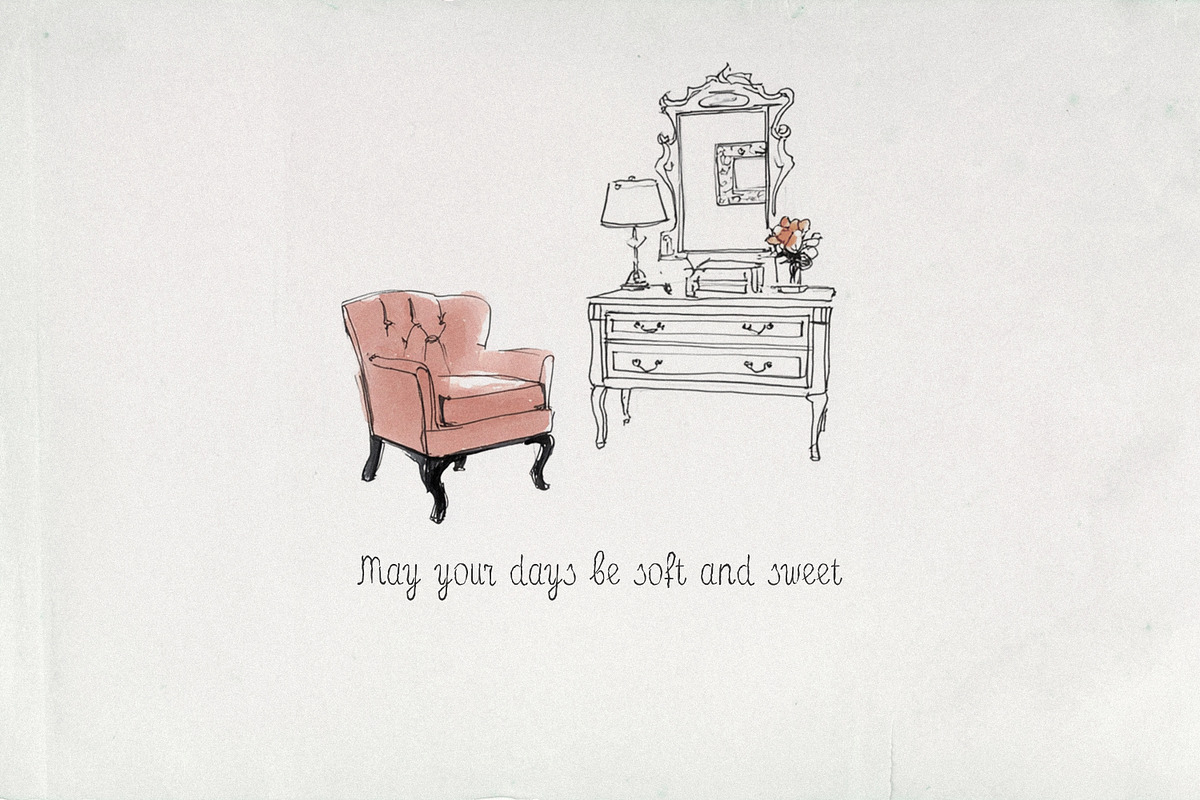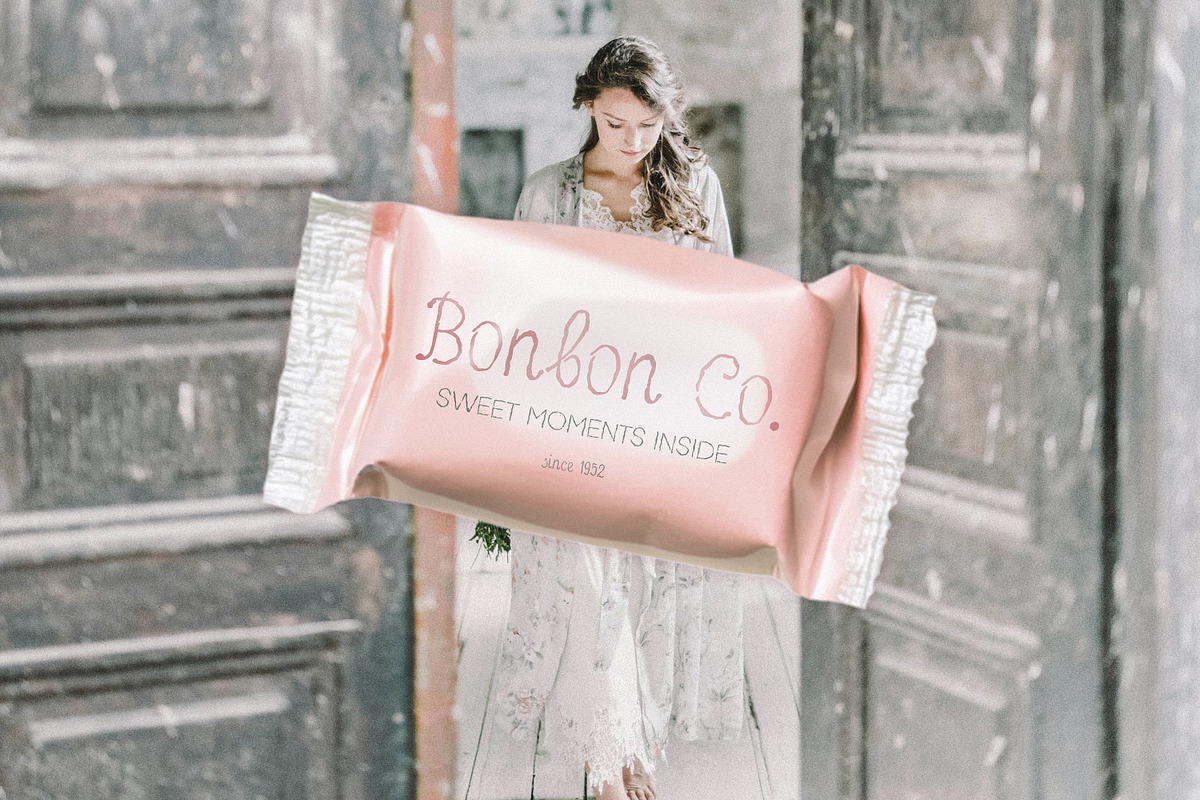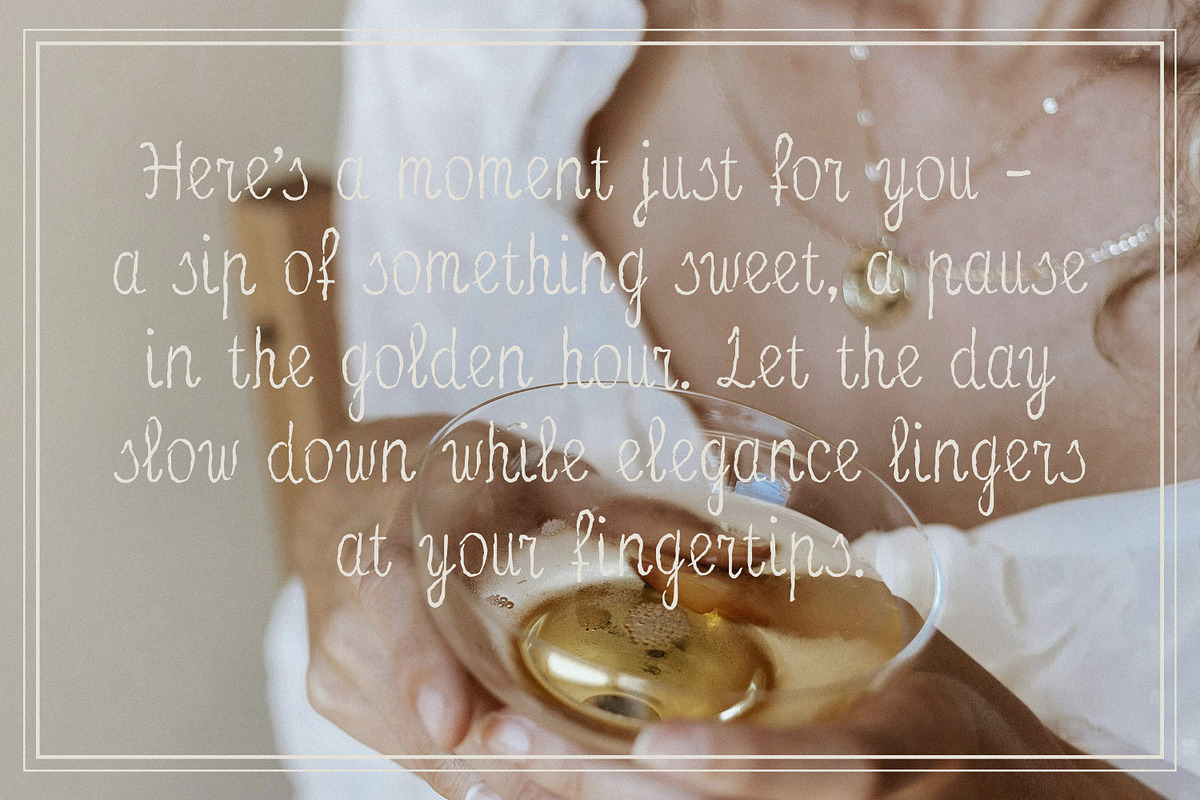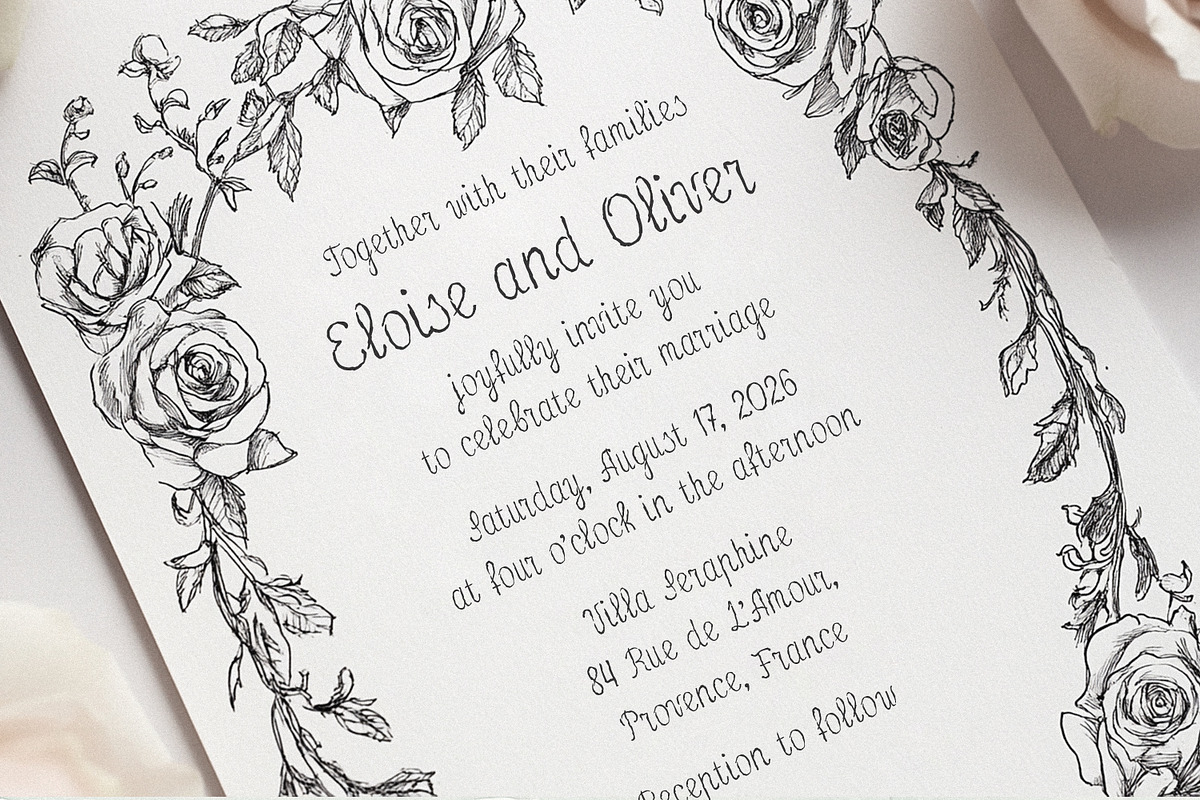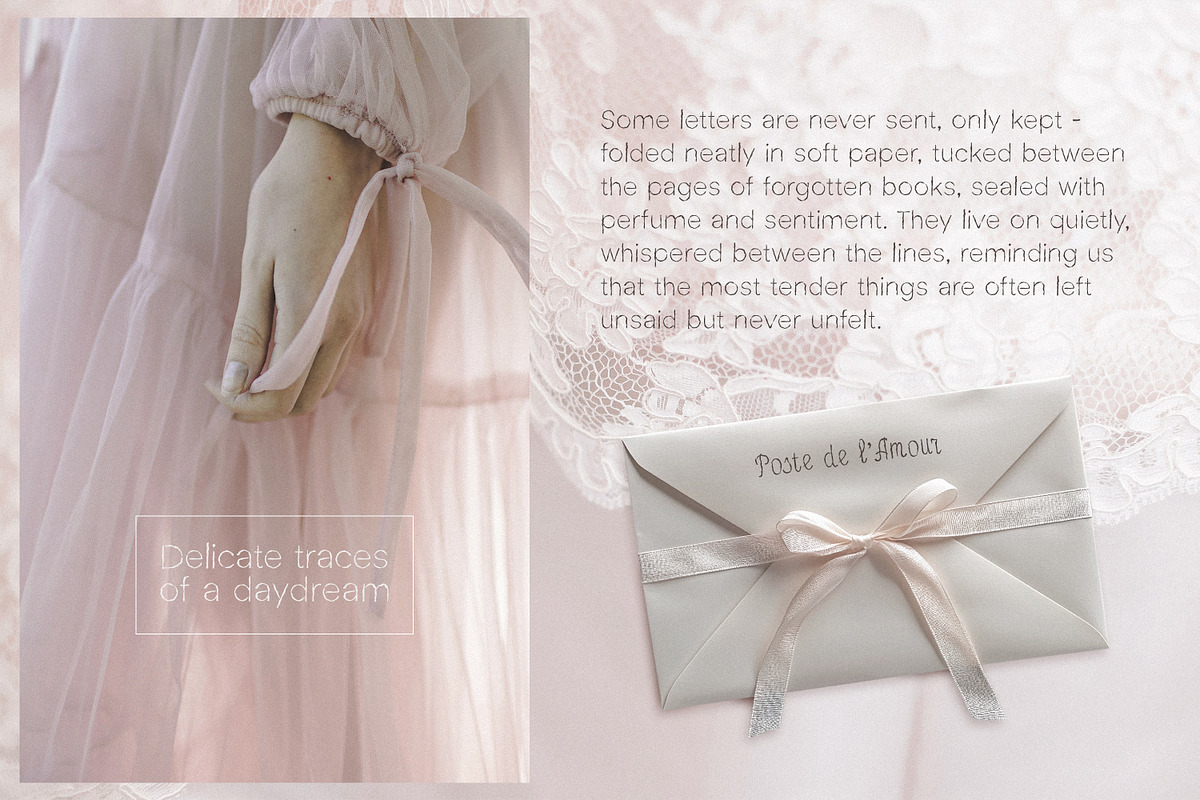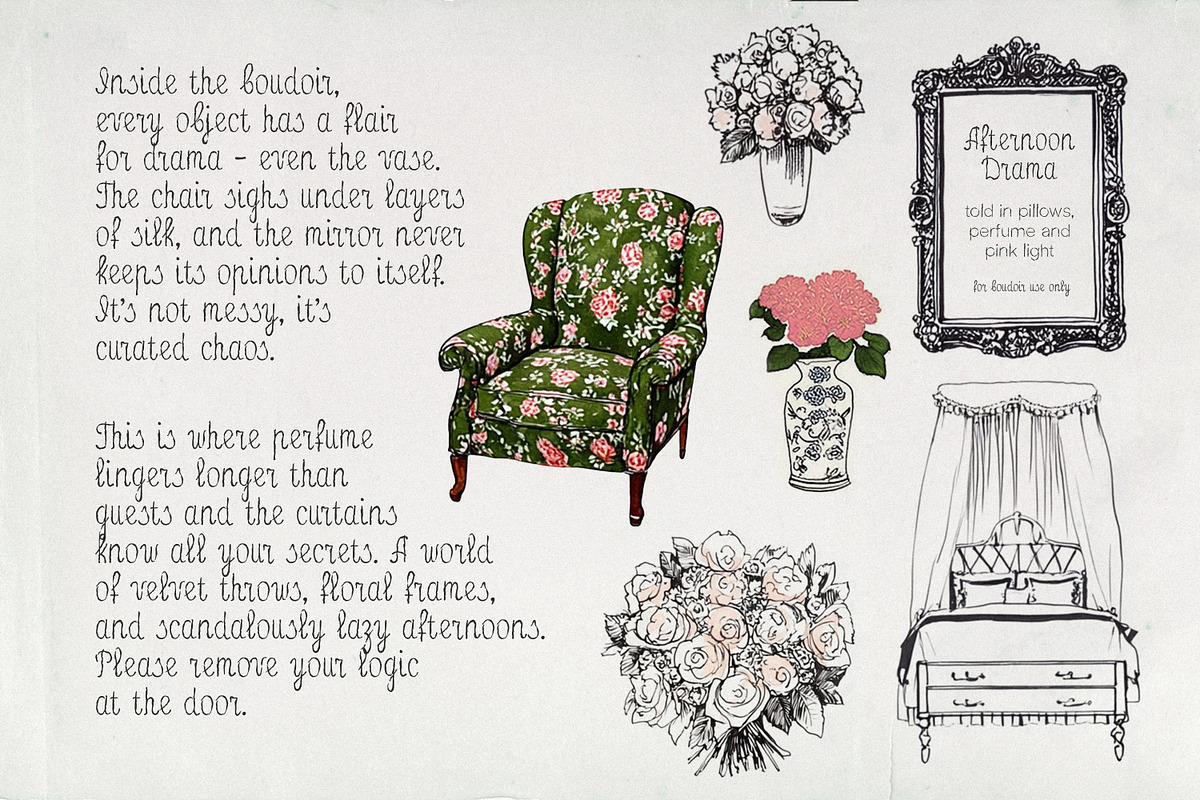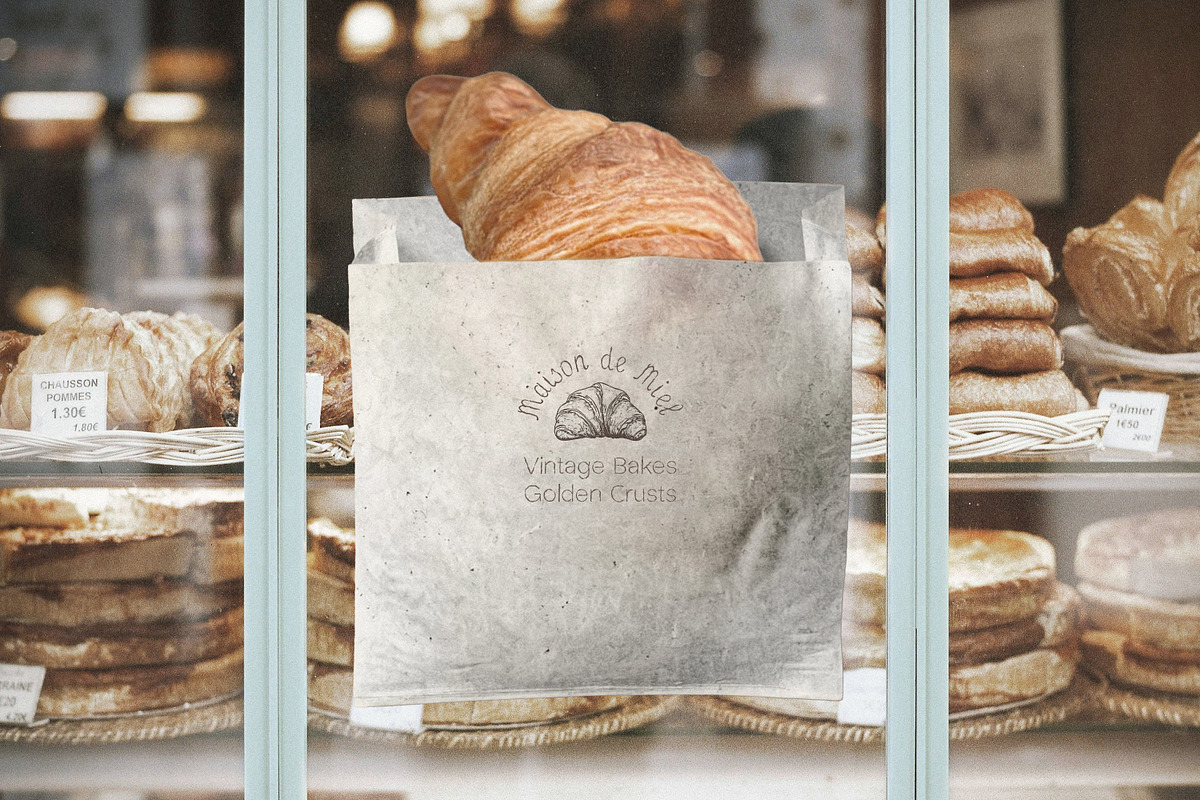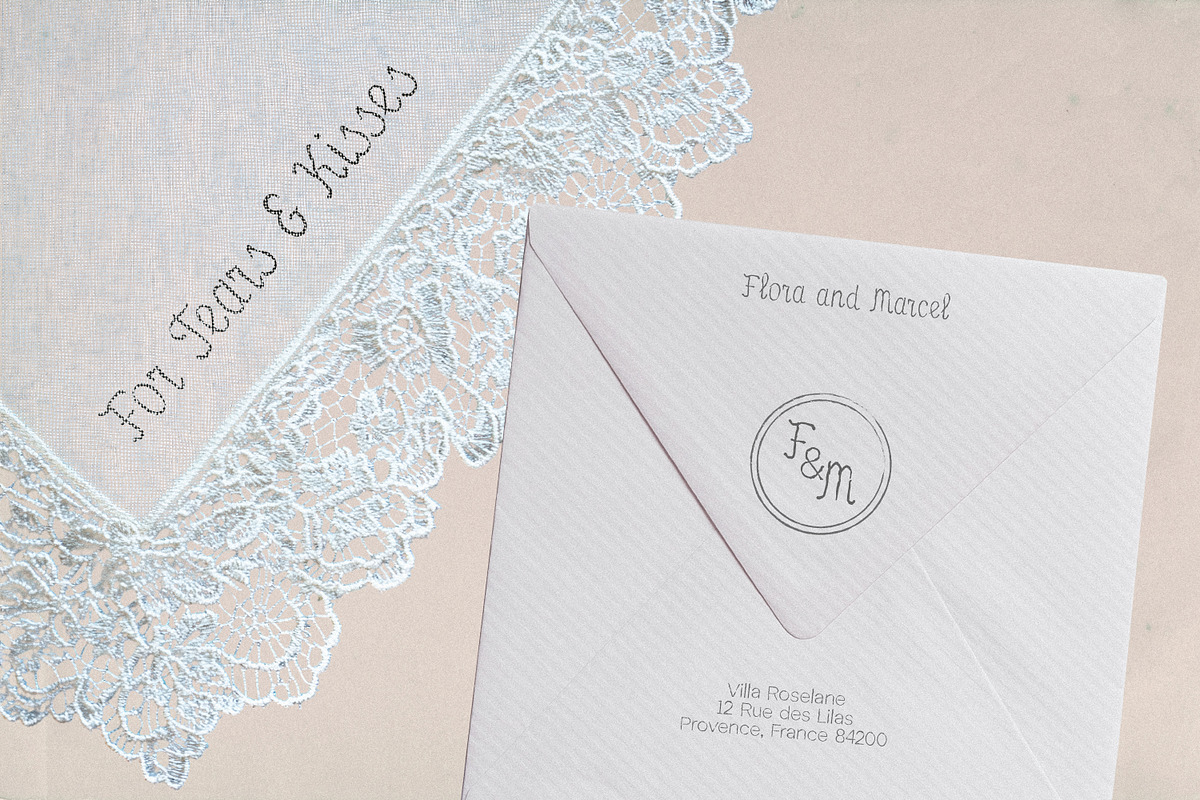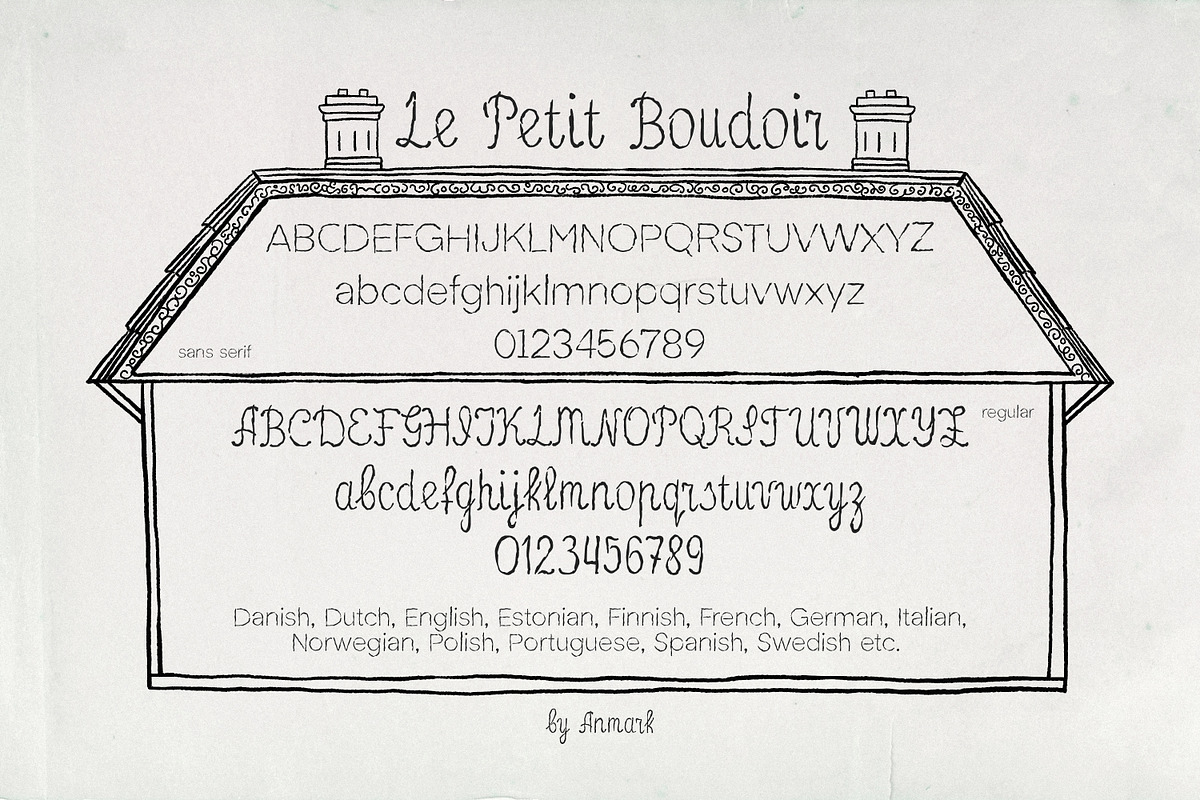
Le Petit Boudoir Vintage Font Duo
Introducing Le Petit Boudoir - a timeless font duo that blends effortless charm with gentle elegance. This pair includes a soft handwritten script and a minimalist sans serif, designed to complement one another in a subtle, romantic way.
The handwritten style brings a light, personal touch - perfect for wedding stationery, boutique branding, or delicate packaging. Paired with the clean sans serif, it creates a graceful balance ideal for lookbooks, menus, editorial spreads, and storytelling visuals.
Whether you're designing an invitation suite, a logo with a vintage soul, or soft, feminine social media content, this duo gives you the freedom to mix contrast with cohesion. Both fonts come with multilingual support and refined details that work beautifully across both print and digital formats.
Let your next design speak in a quiet, nostalgic voice - polished, poetic, and full of character.